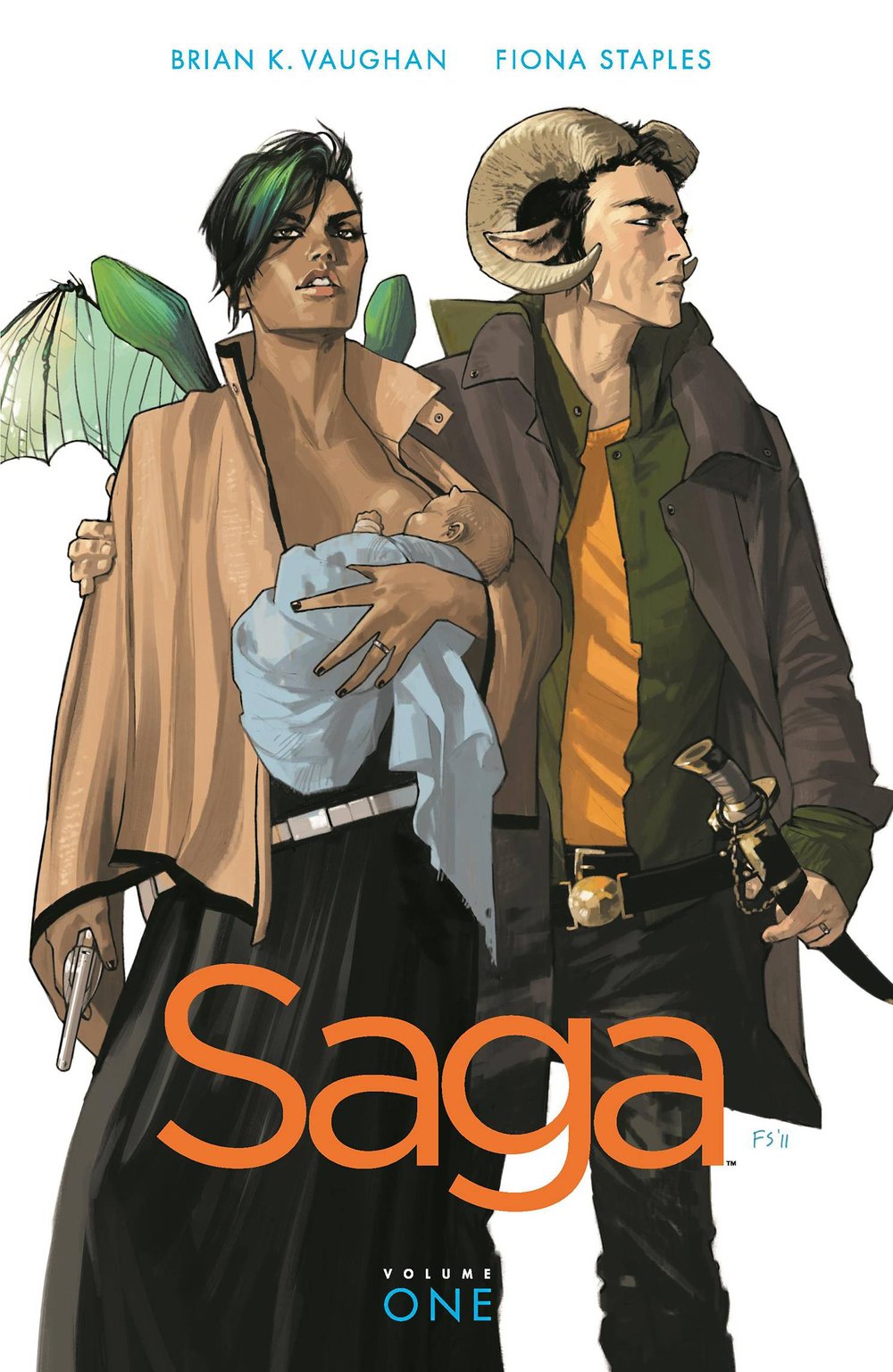
Saga (comics) Font
BookSaga is a weekly comic book series written and illustrated by Brian K. Vaughan for Image Comics. The series focuses on an extraterrestrial couple, Alana and Marko, as they struggle to care for their daughter, Hazel, during a long-running galactic war. The cover of its first issue, which was released on March 14, 2012, is shown above.
The title is from Hoefler & Co.'s Gotham Regular. Futura was used to set additional text.